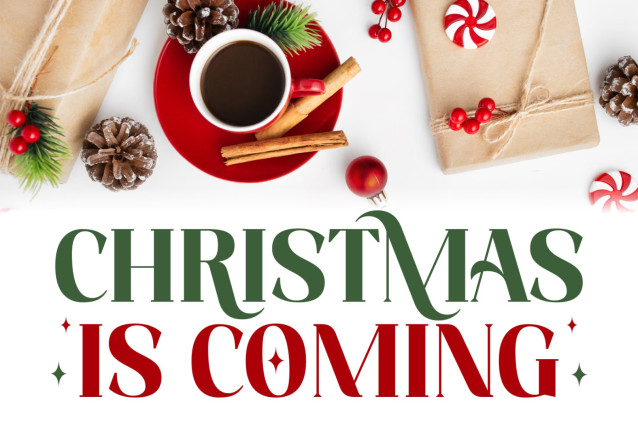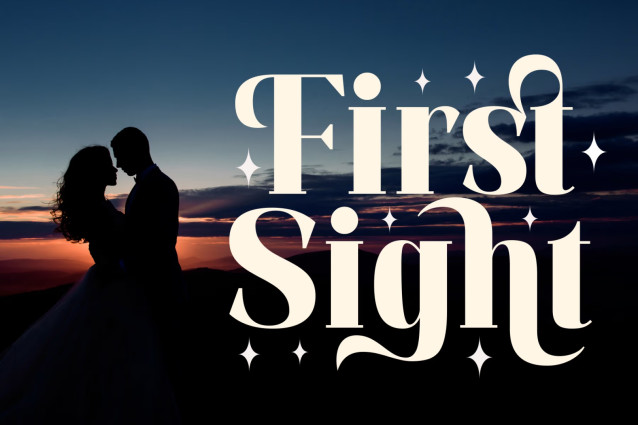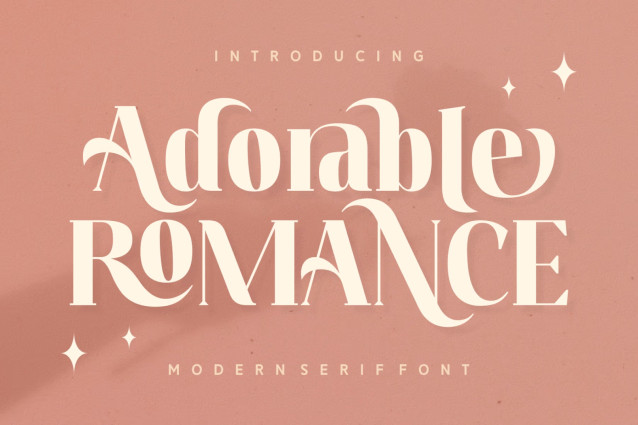
Adorable Romance Font
Adorable Romance is a bold, stylish, and assertive serif font. No matter the topic, this font will be an incredible asset to your fonts’ library, as it has the potential to elevate any creation. This font is PUA encoded which means you can access all the glyphs and ligatures with ease!